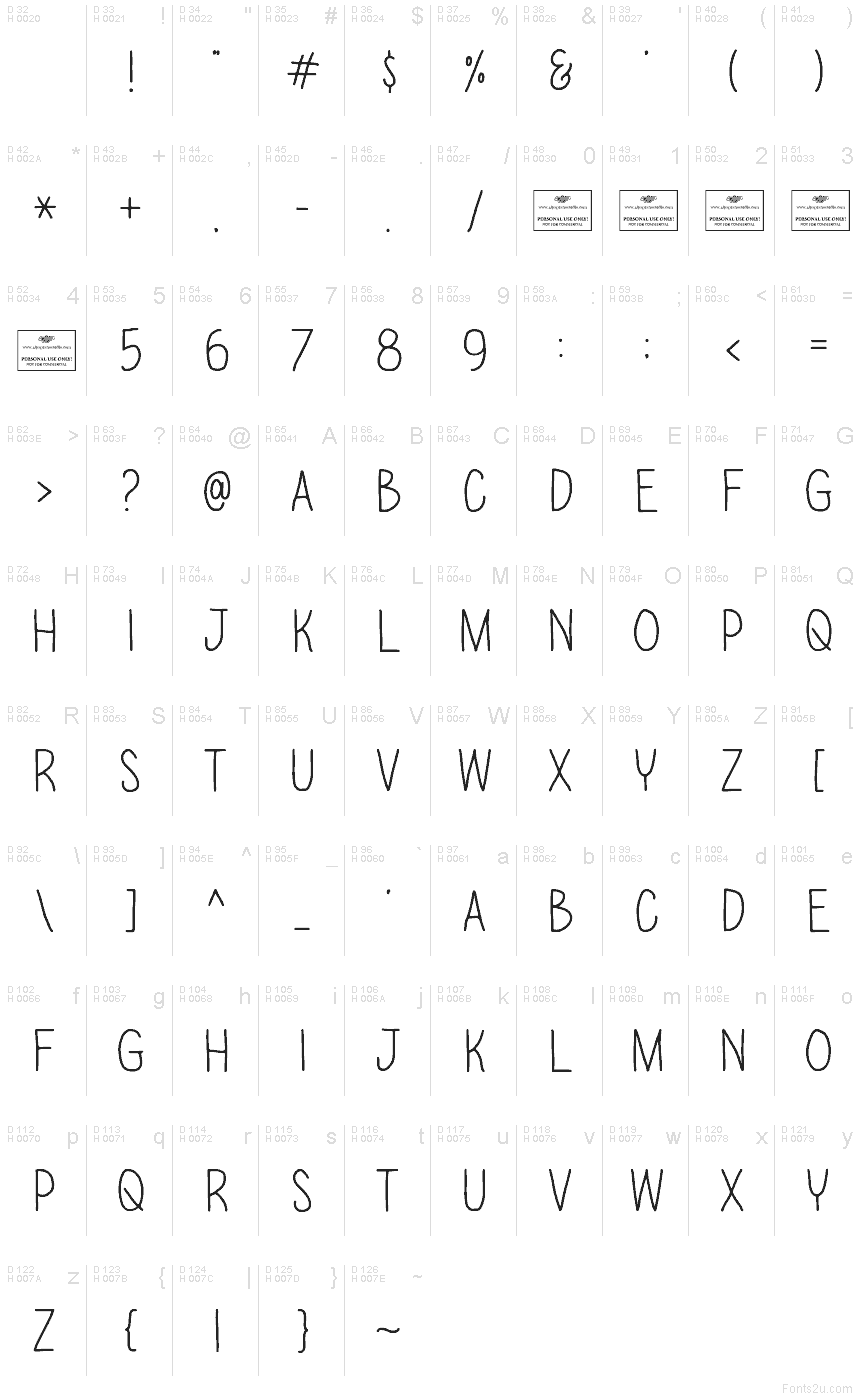
Church Street
Church Street font by Alpaprana Studio has a casual tone, hand-drawn feel, and minimalistic design. This modern condensed handwritten font brings about a stylish aesthetic to any design wishing to appear unique. Its organic appearance is versatile for different projects, especially having less number of words.
All the letters in the typeface are distinctive for packaging, branding, invitation cards, advertisements, T-shirt prints and many more. This free artistic handwritten font can be included in mobile app content preview images or website hero banners.